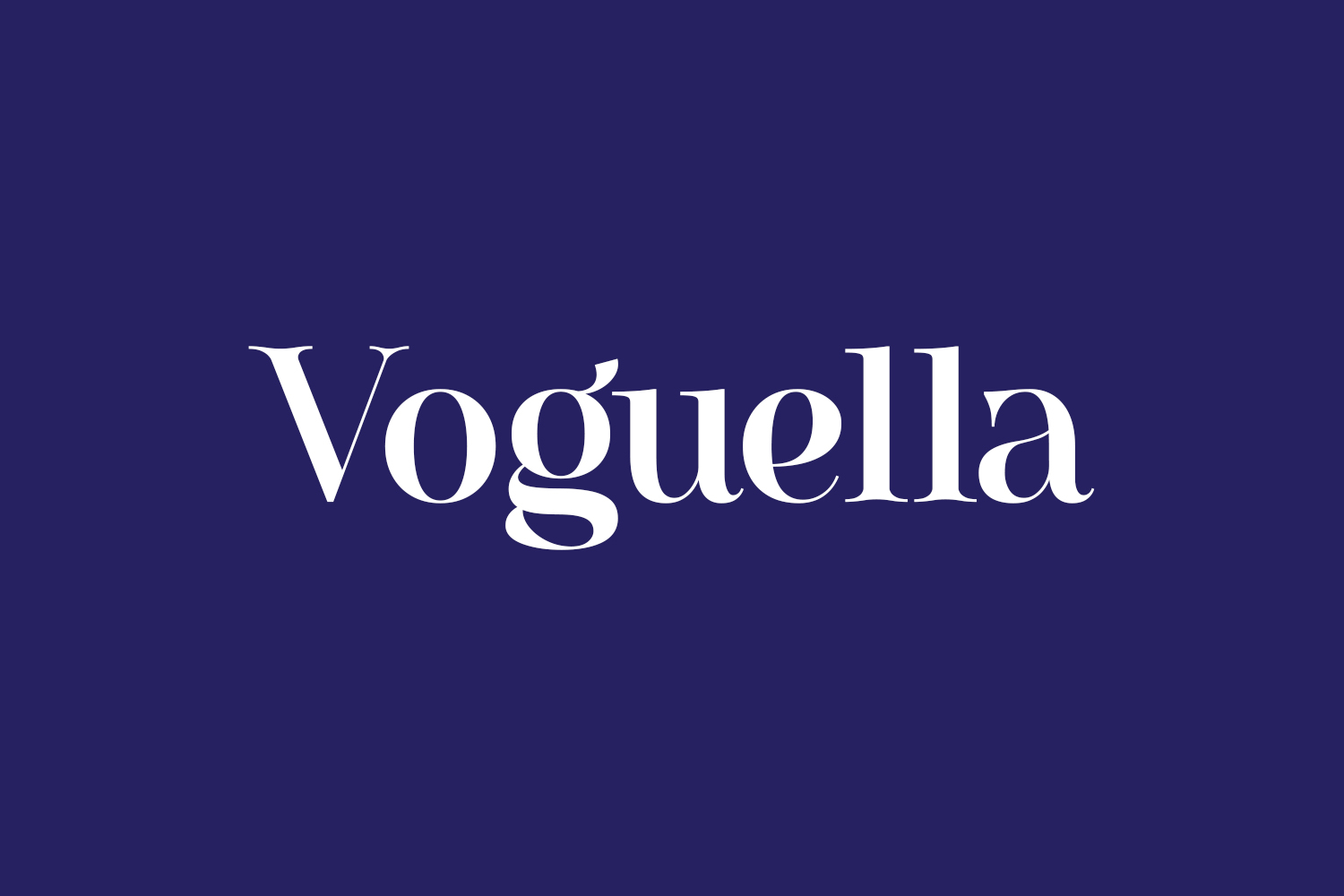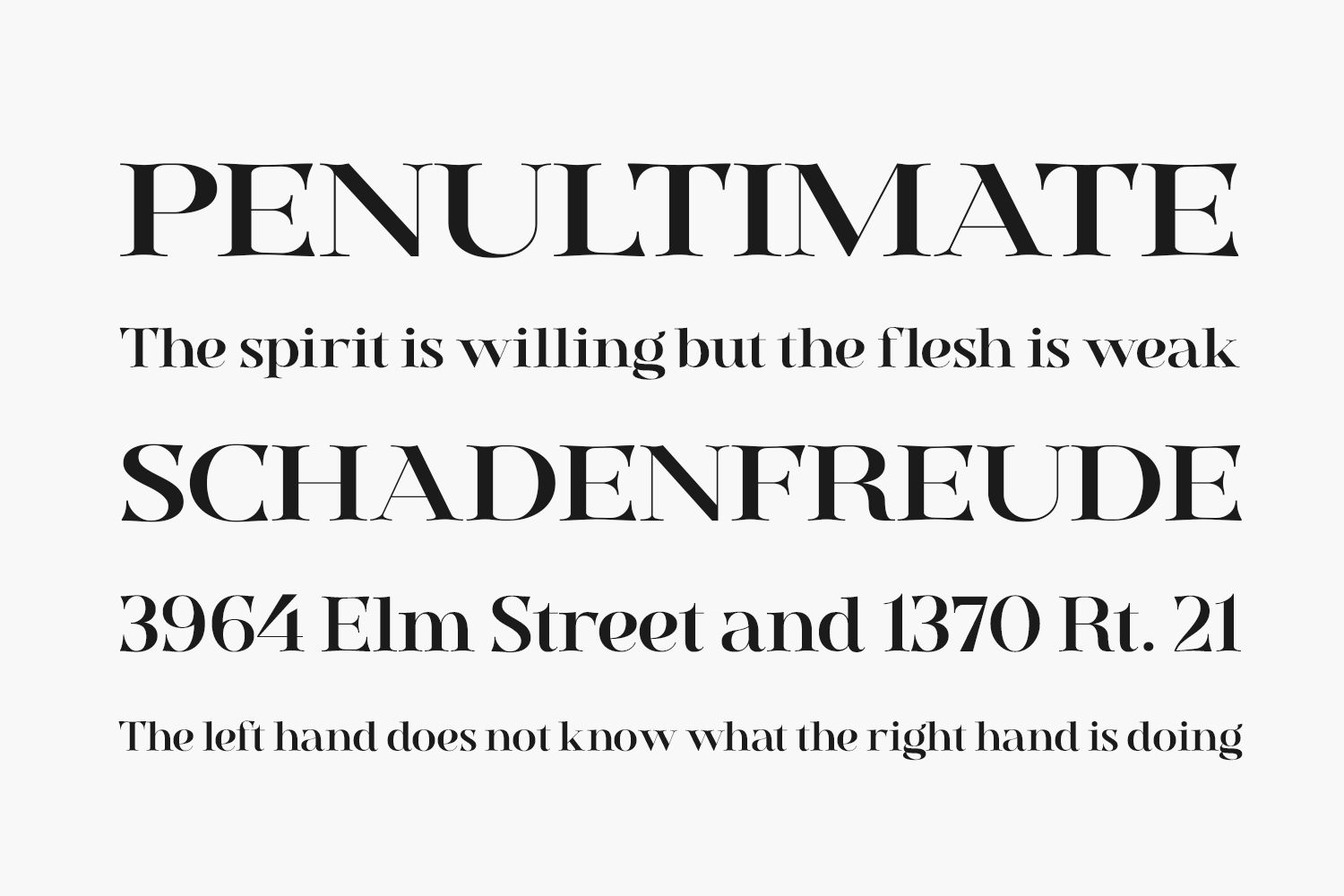
Voguella – Free Elegant Stencil Serif Font
Voguella is a sleek stencil serif typeface designed by Mokatype Studio. Featuring refined serifs with strategic stencil cuts, this font radiates sophistication—perfect for high-end branding, luxury packaging, editorial headlines, logos, and monogram work. The free personal‑use version in TTF includes ~200 characters, while the full commercial license is available from the designer.
Why Choose Voguella?
- Elegant Stencil Style: Unique serif cuts add imagery for upscale, contemporary designs.
- Modern & Luxurious: Clean lines and tall proportions evoke premium editorial and fashion aesthetics.
- Logo & Headline Ready: Works beautifully in wordmarks, mastheads, pull quotes, and signage.
Where to Use Voguella?
- Branding & Logos: Sophisticated identity work for luxury brands, boutiques, and premium products.
- Magazine & Editorial Headlines: Stylish mastheads, feature titles, and cover lines.
- Packaging & Labels: Brings a refined edge to cosmetics, boutique goods, beverages.
- Signage & Displays: Elegant foyer signs, gallery labels, event branding.
- Monograms & Pull Quotes: Adds high-end flair to quotes, initials, editorial flourishes.
Design Tips with Voguella
Use at medium-large sizes (24 pt+) to showcase stencil detail and serif finesse. Combine with neutral sans‑serifs like Montserrat or Moonglade for visual contrast. Opt for rich color palettes—deep navy, forest green, or burgundy with cream or gold accents—for sophisticated effect. Overlay soft textures like linen or paper grain to enhance premium feel.